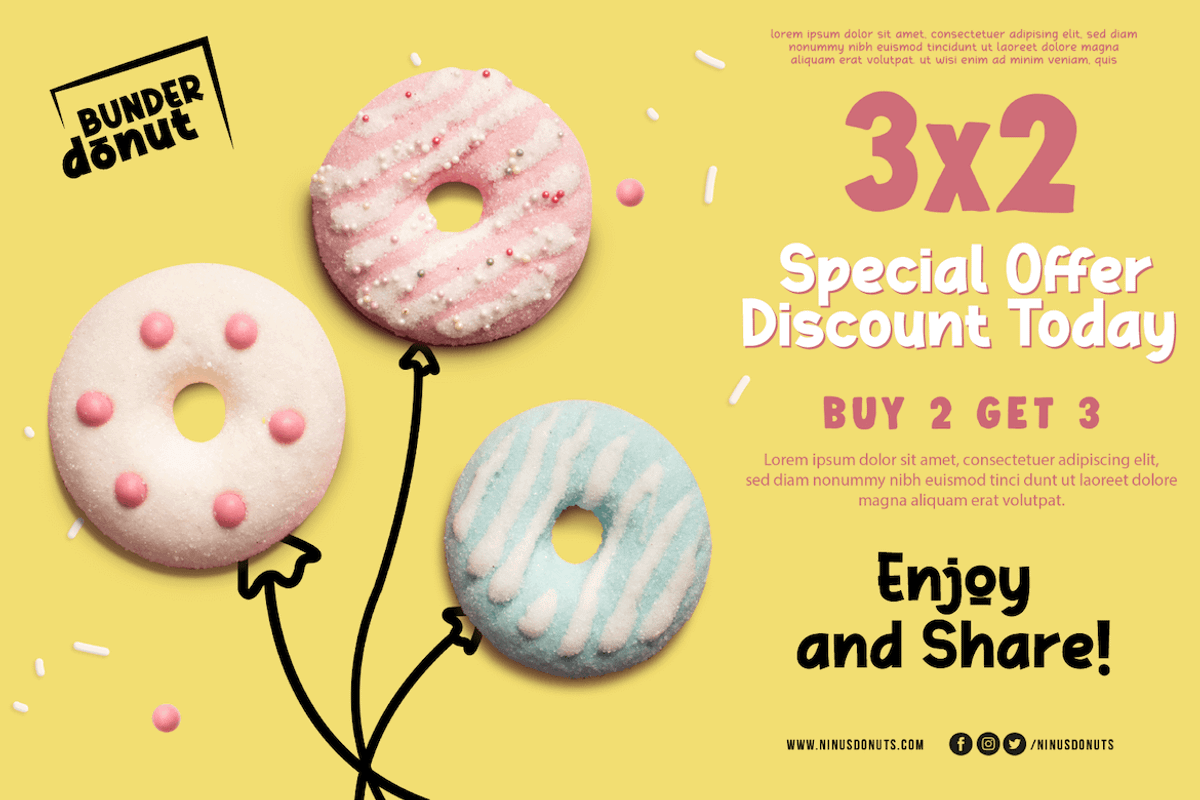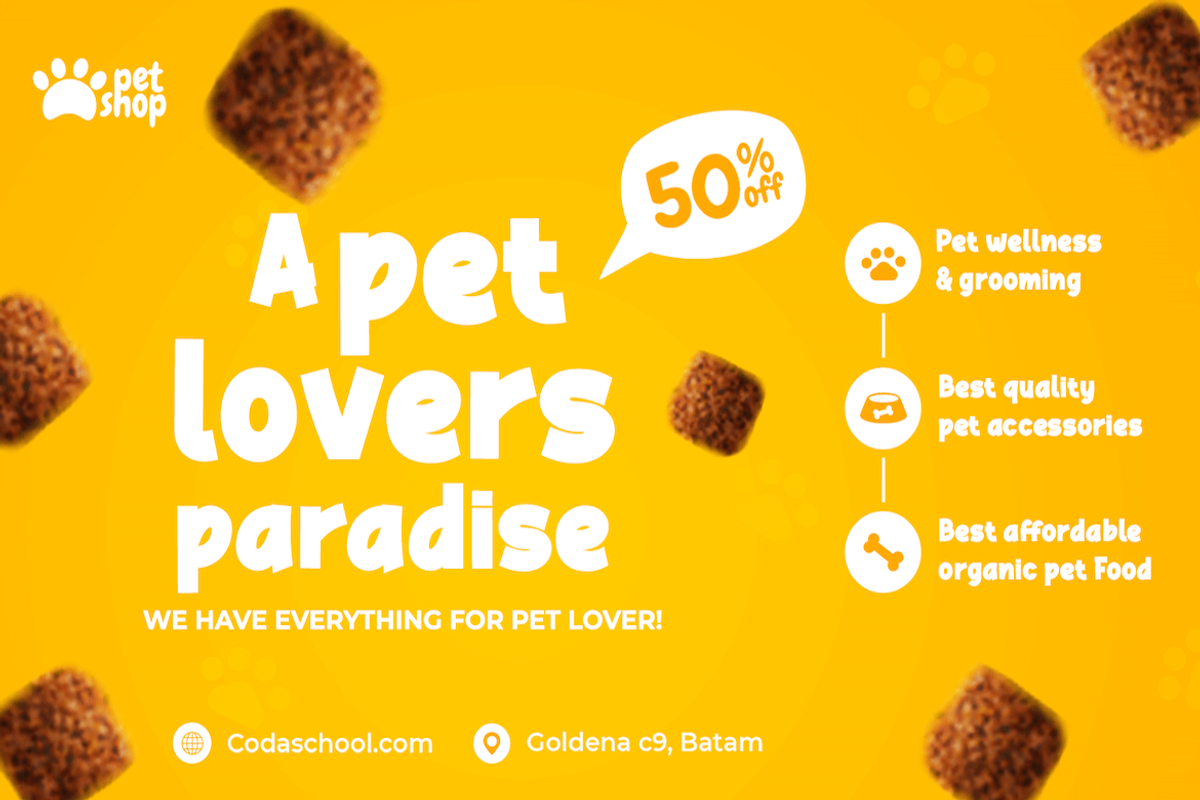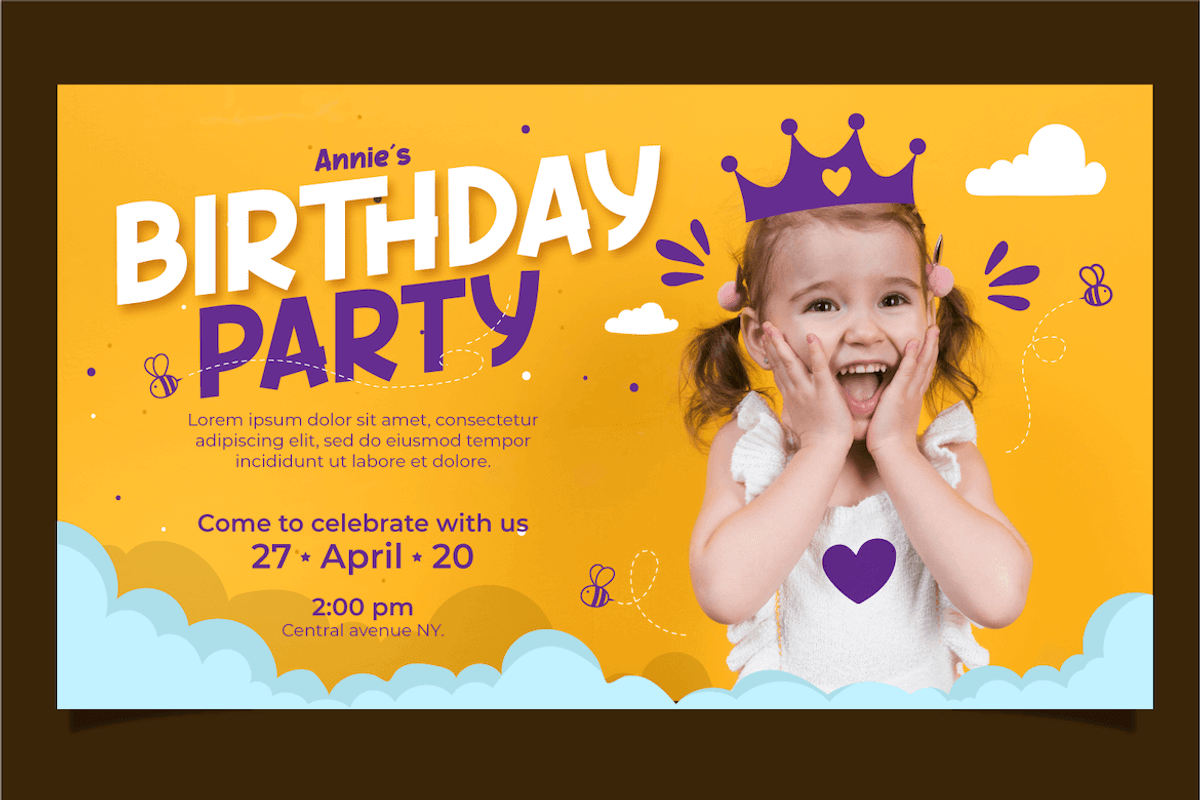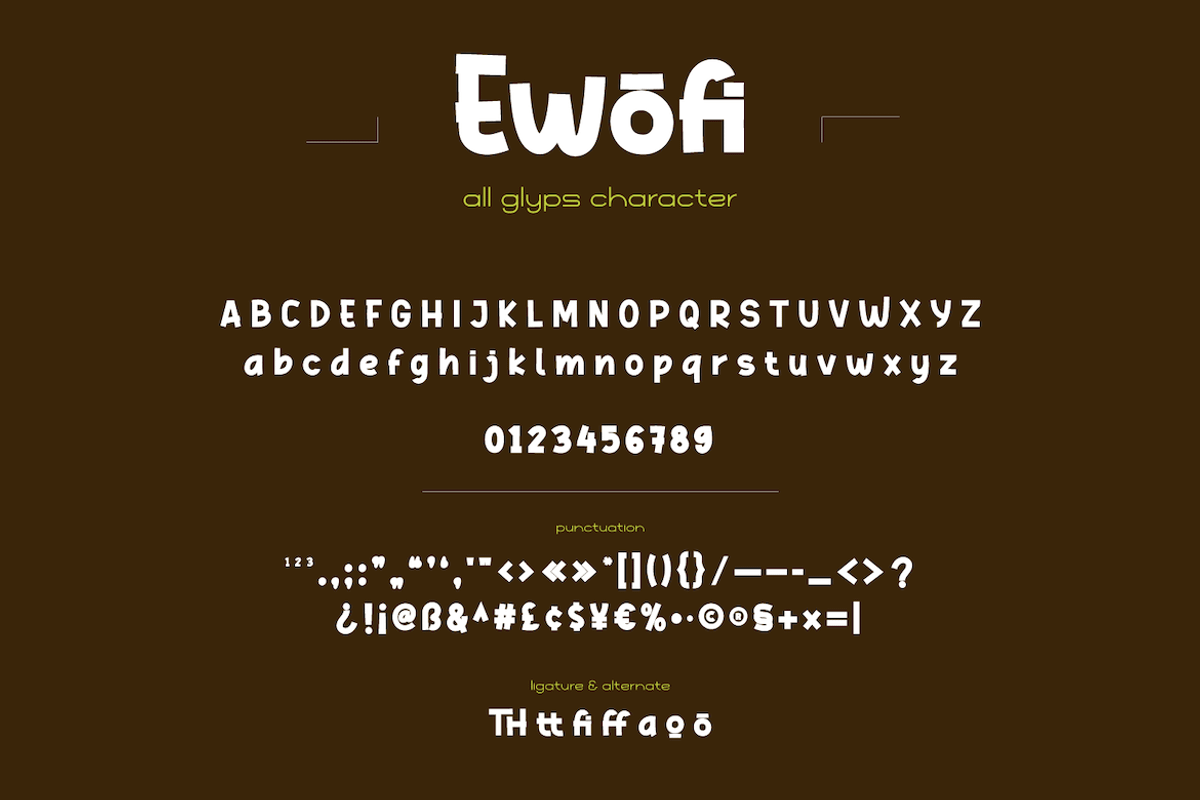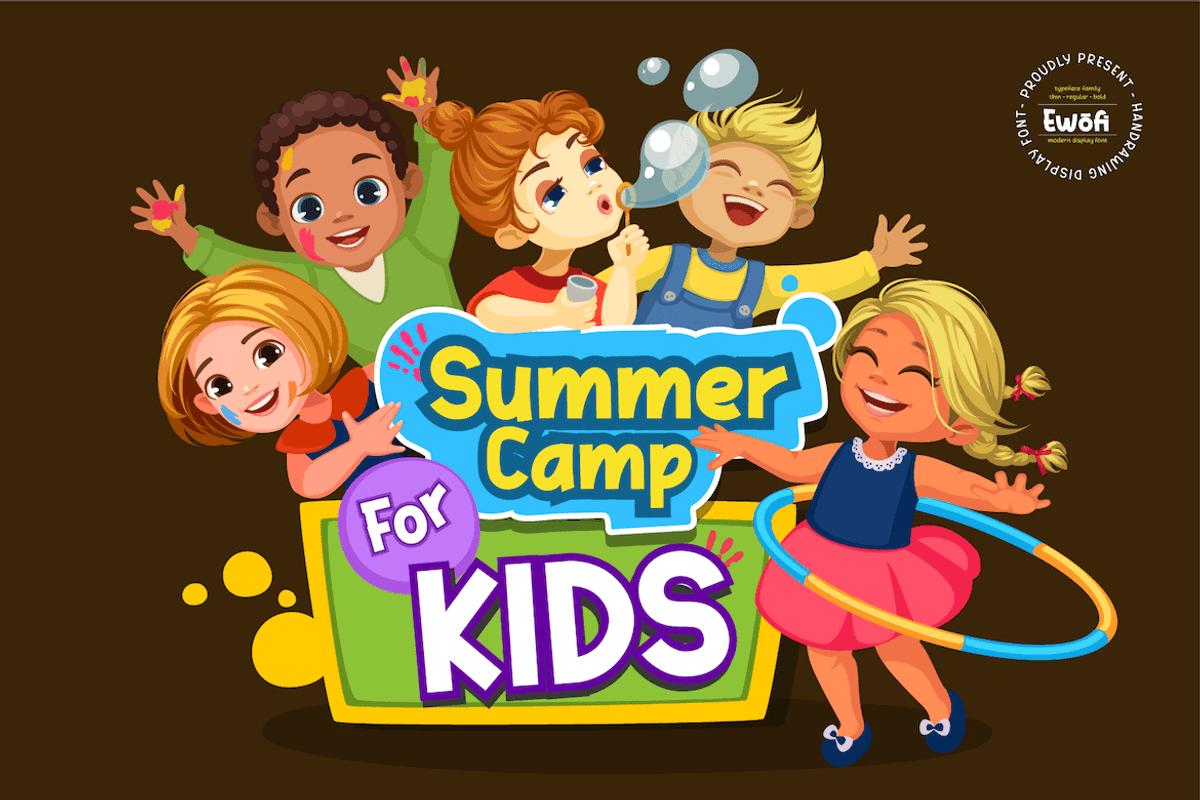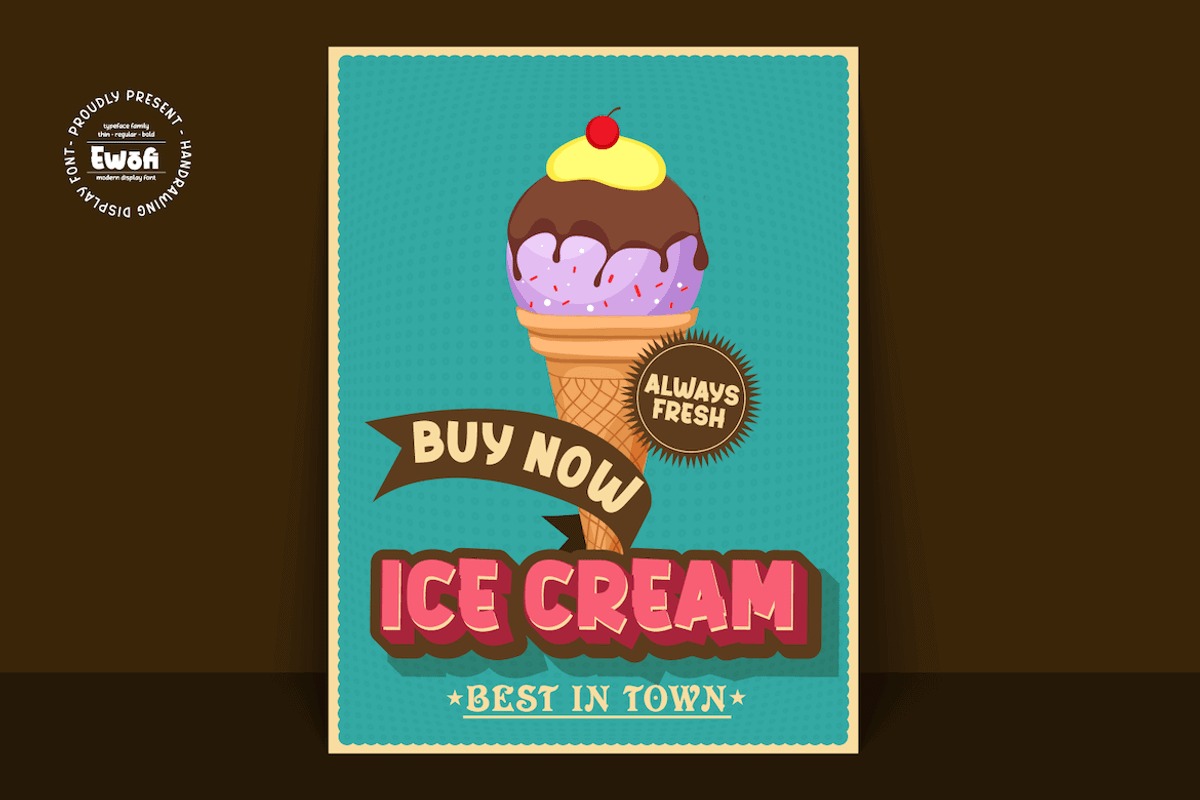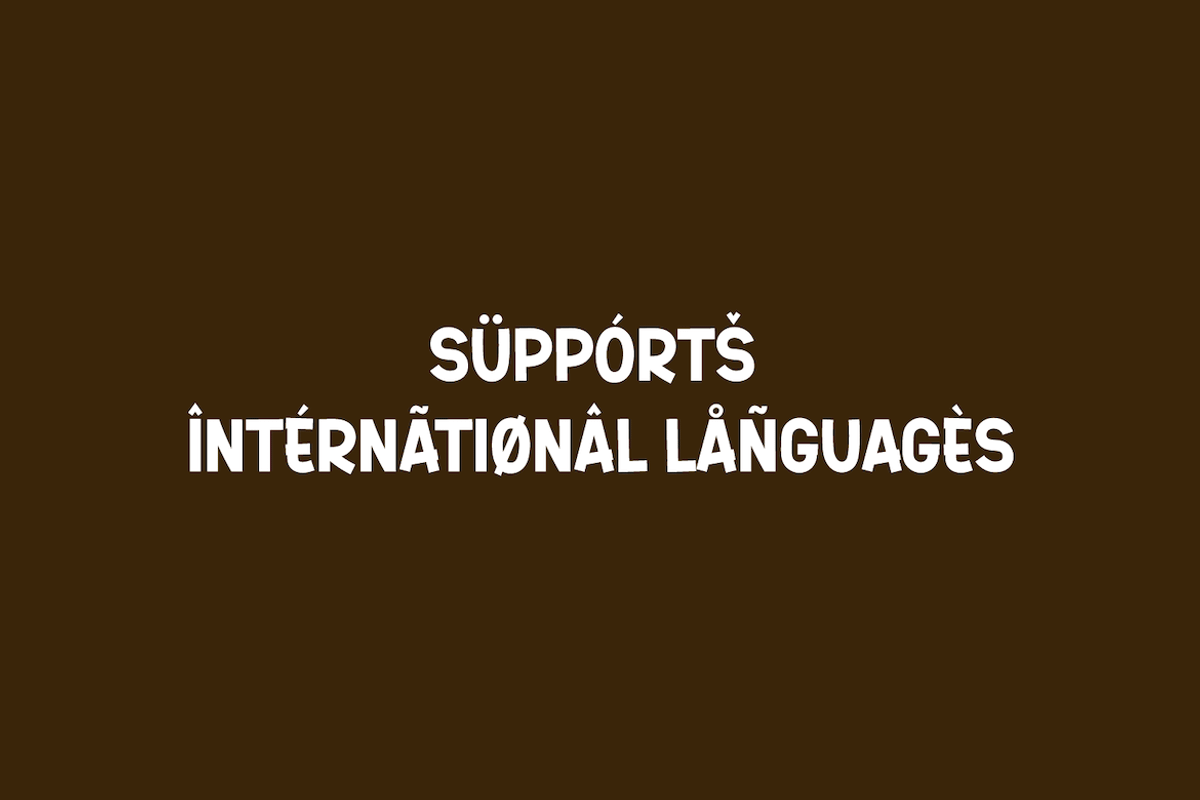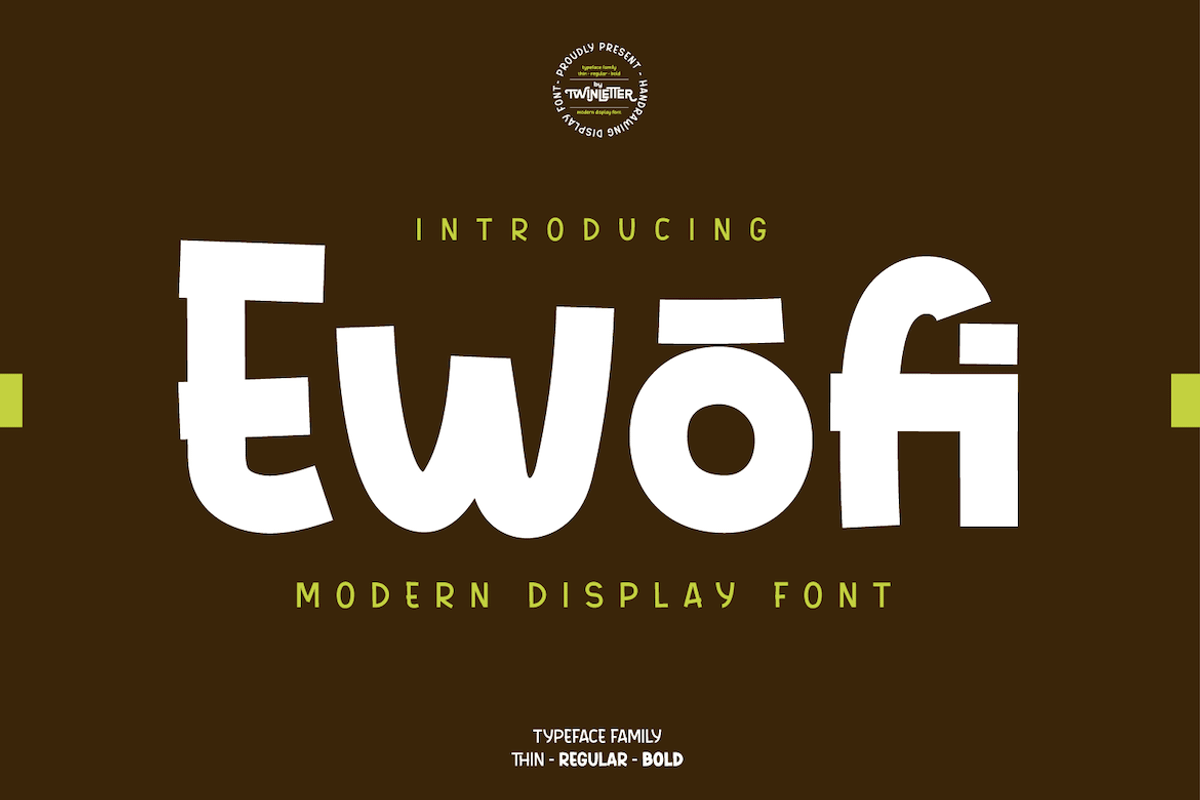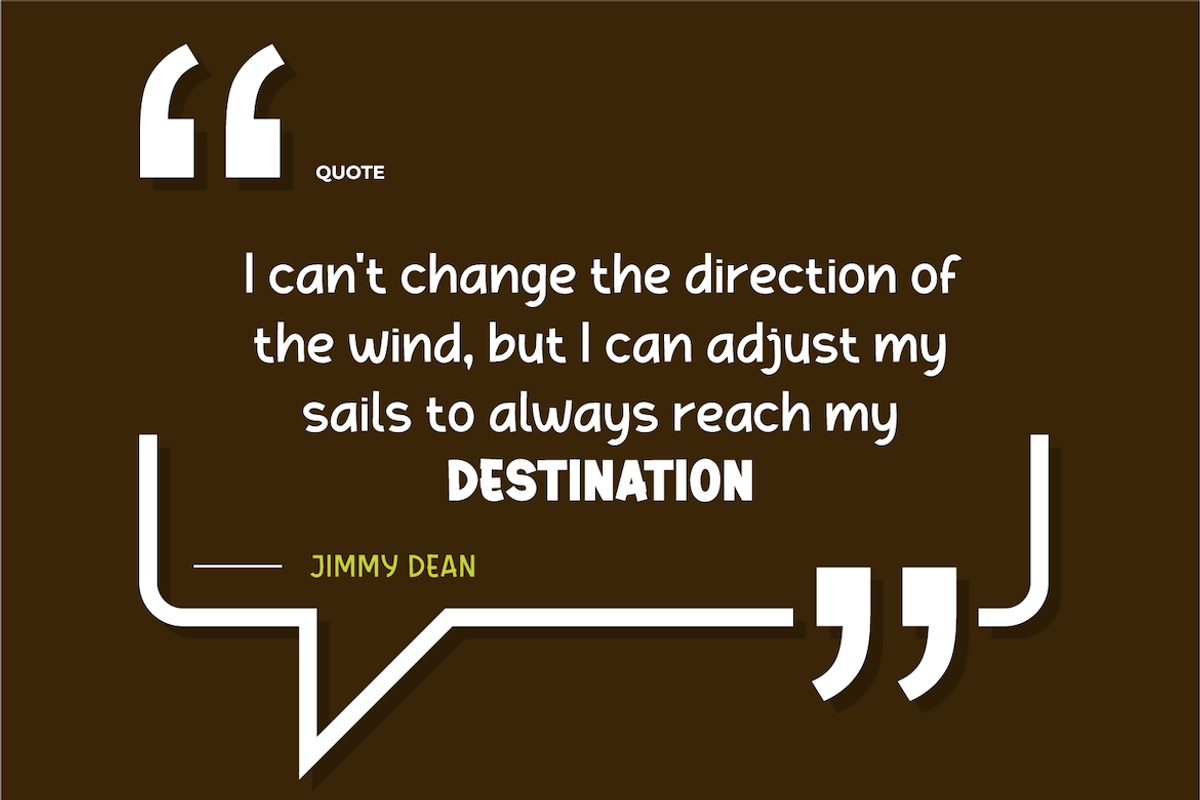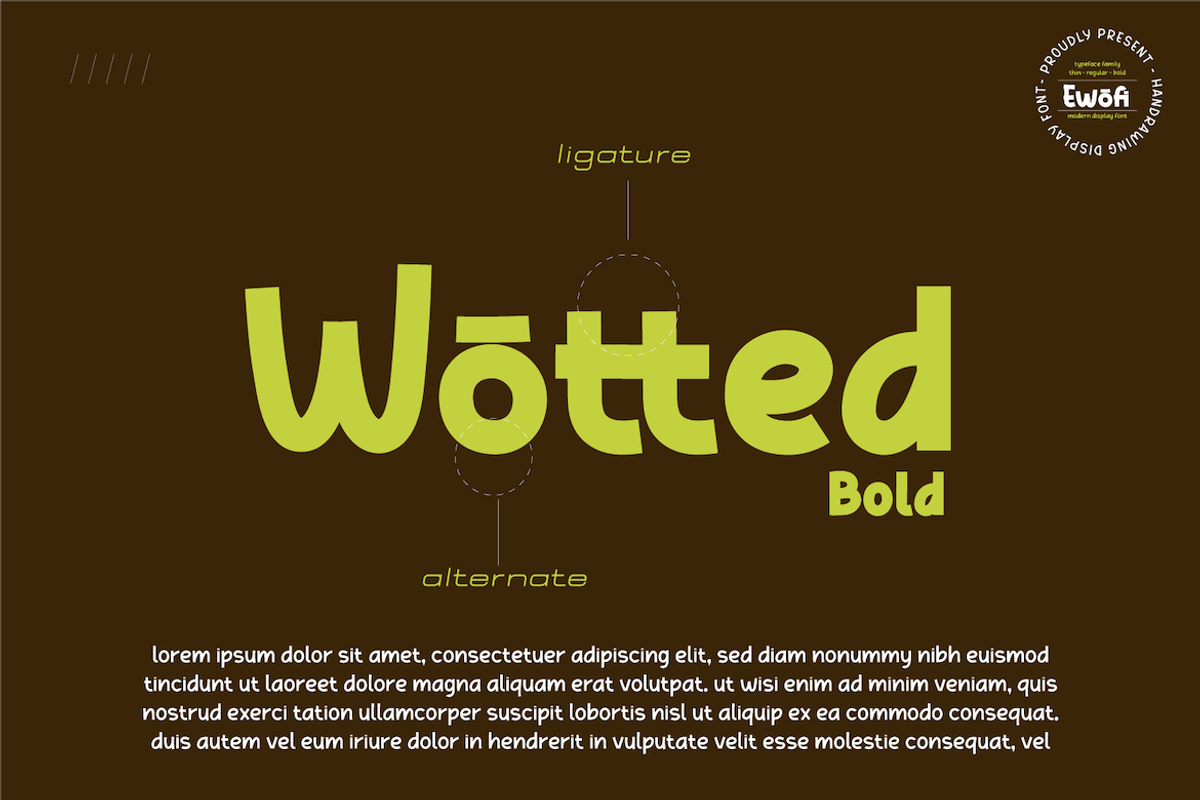
Ewofi
We call this san serif font Ewofi This font is designed with attention to the uniqueness and harmony in its use, has a distinctive character in every word that is written using this font. not only that, but we also complete this font with ligatures and alternates that enhance visuals.
This handwritten font is perfect for children’s magazines, drink banners, games, posters, beverages, outdoor events, thumbnails, food banners, cheerful writing, film titles, quotes, titles, logos, and various kinds of projects you need, of course, your various design projects will be perfect and extraordinary if you use this font because this font is equipped with a complimentary font family, both for titles and subtitles and sentence text.